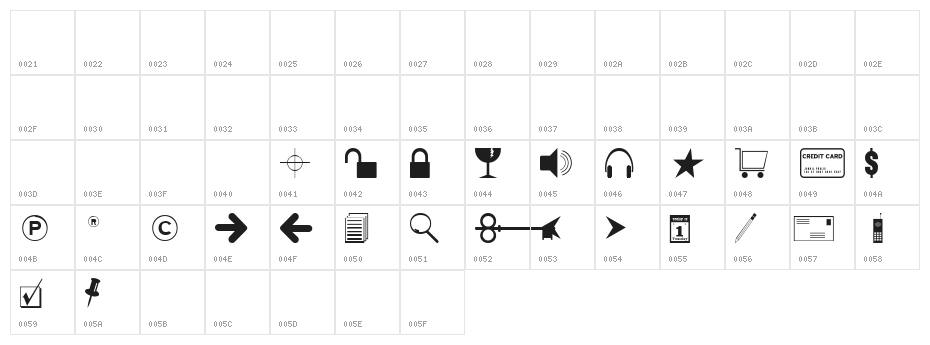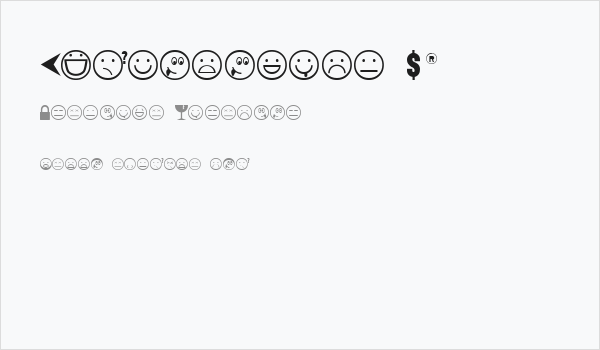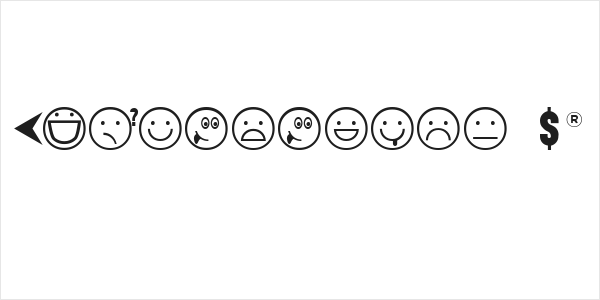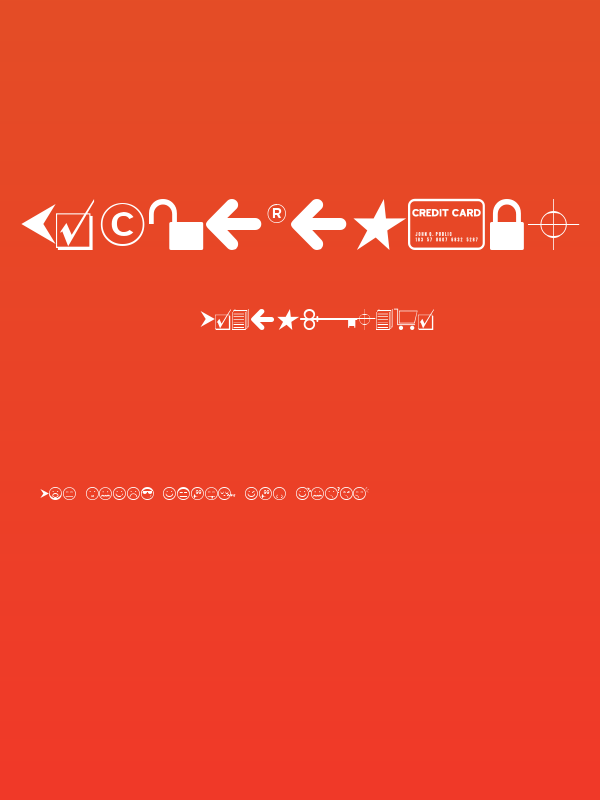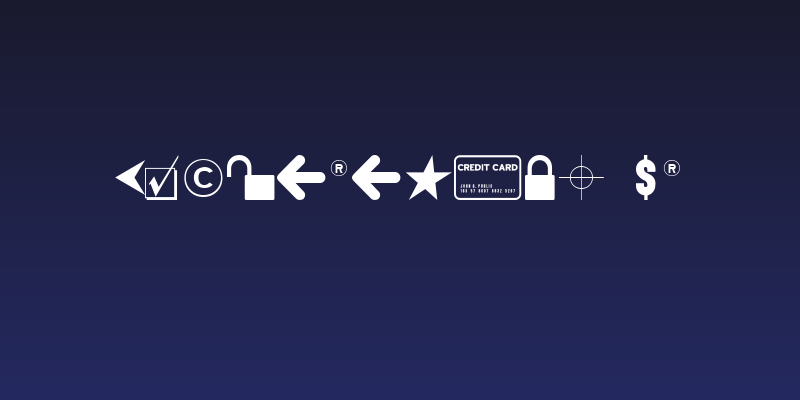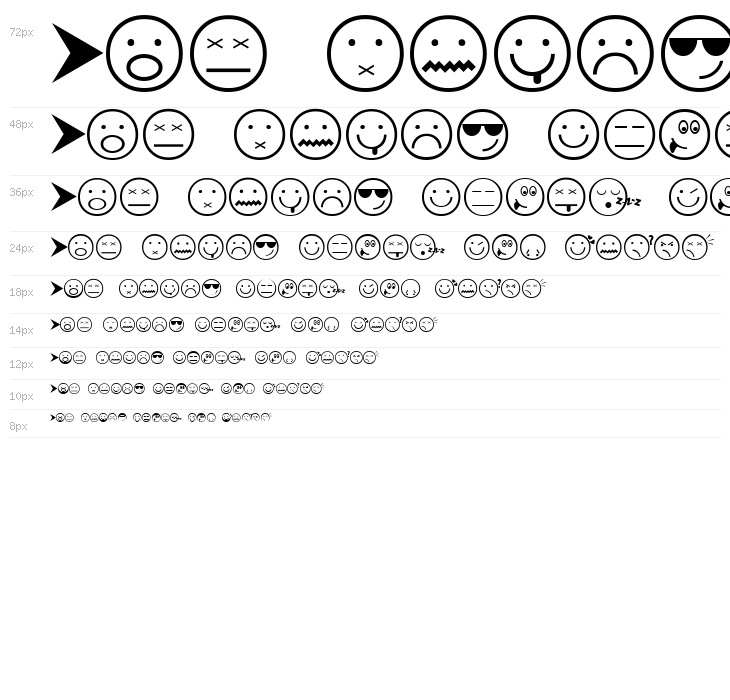
Symbologica JL Font
Symbologica JL Description
This collection features a diverse array of symbols and emoticons, each crafted with a clean and modern aesthetic. The symbols range from everyday objects like locks, glasses, and headphones to more abstract icons such as arrows and stars. The emoticons convey a wide range of emotions, from happiness and surprise to confusion and anger, all depicted with simple yet expressive line work. The overall design is consistent, with a focus on clarity and ease of recognition, making it suitable for various digital applications.
Proposed ProjectsIdeal for use in digital interfaces, educational materials, and communication apps where clear iconography is essential.